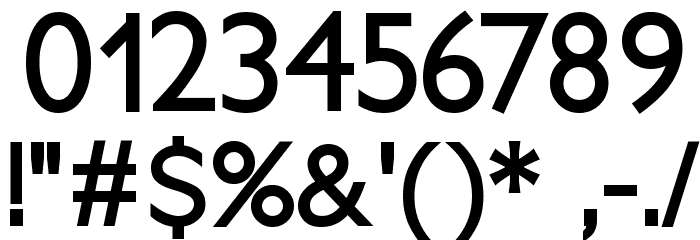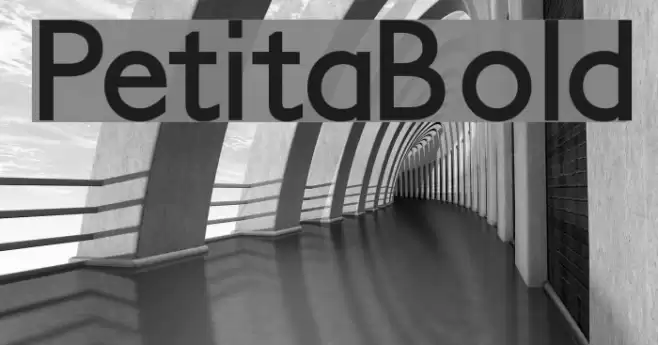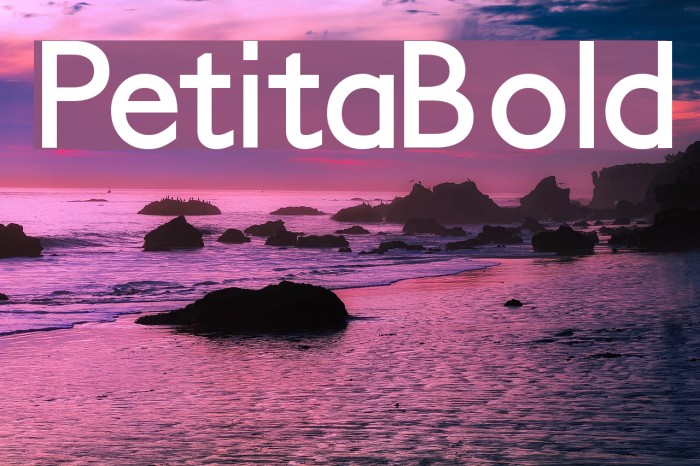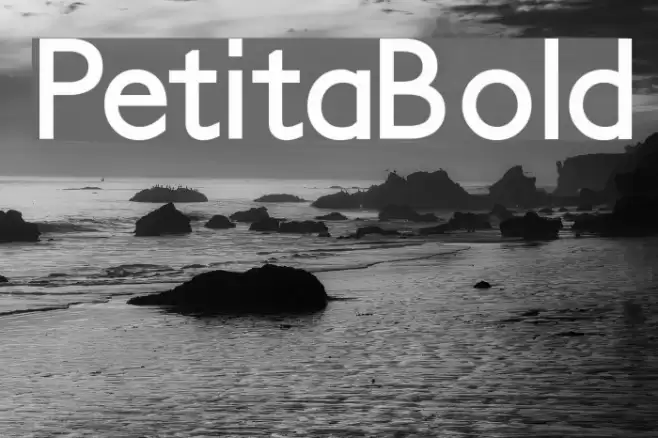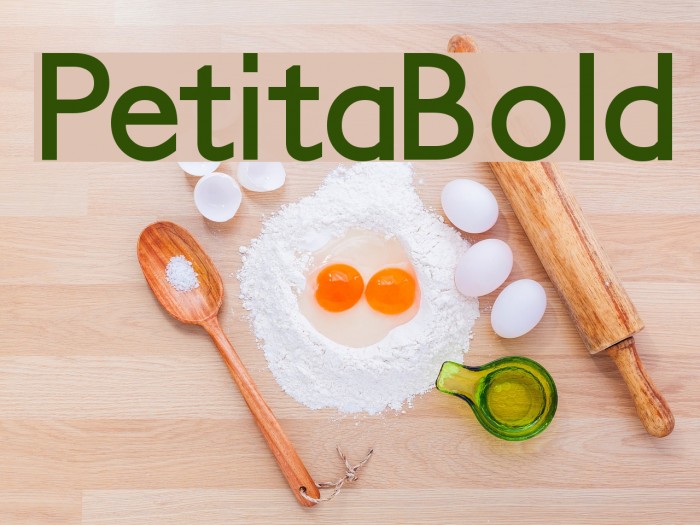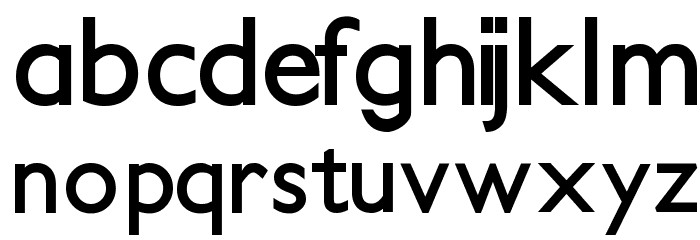
PetitaBold Font
PetitaBold Description
This font exhibits a clean and modern sans-serif style with a bold weight, making it highly legible and impactful. The characters are well-proportioned with a consistent stroke width, contributing to its uniform appearance. The uppercase letters are slightly taller than the lowercase, providing a balanced and professional look. The numerals are clear and distinct, ensuring readability in various contexts. Special characters are designed with the same attention to detail, maintaining the overall aesthetic. The font's simplicity and clarity make it versatile for a range of applications.
| Use Case | Headlines, Logos, Digital content |
| Proposed Projects | Ideal for branding, advertising, headlines, and digital content where clarity and impact are essential. |